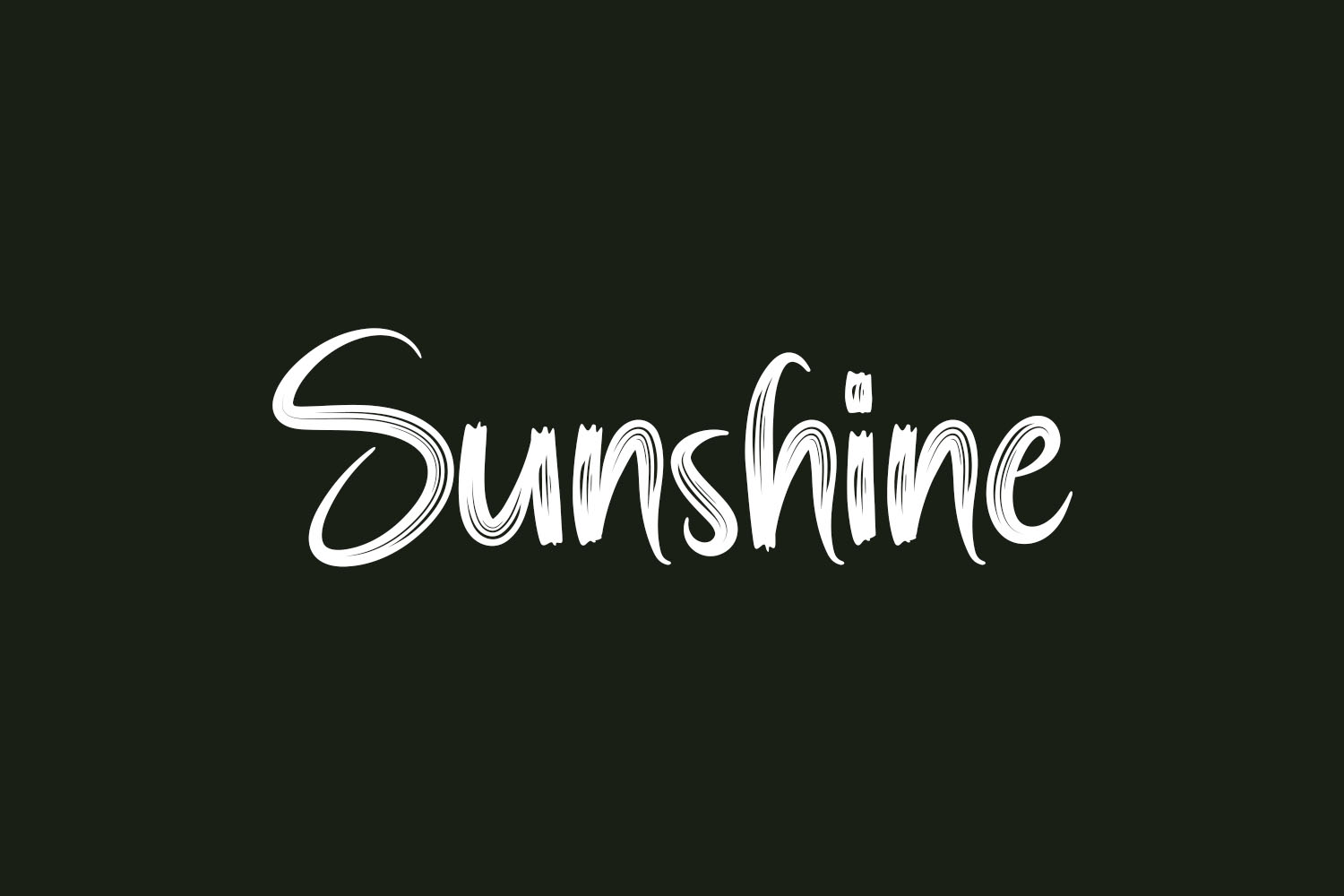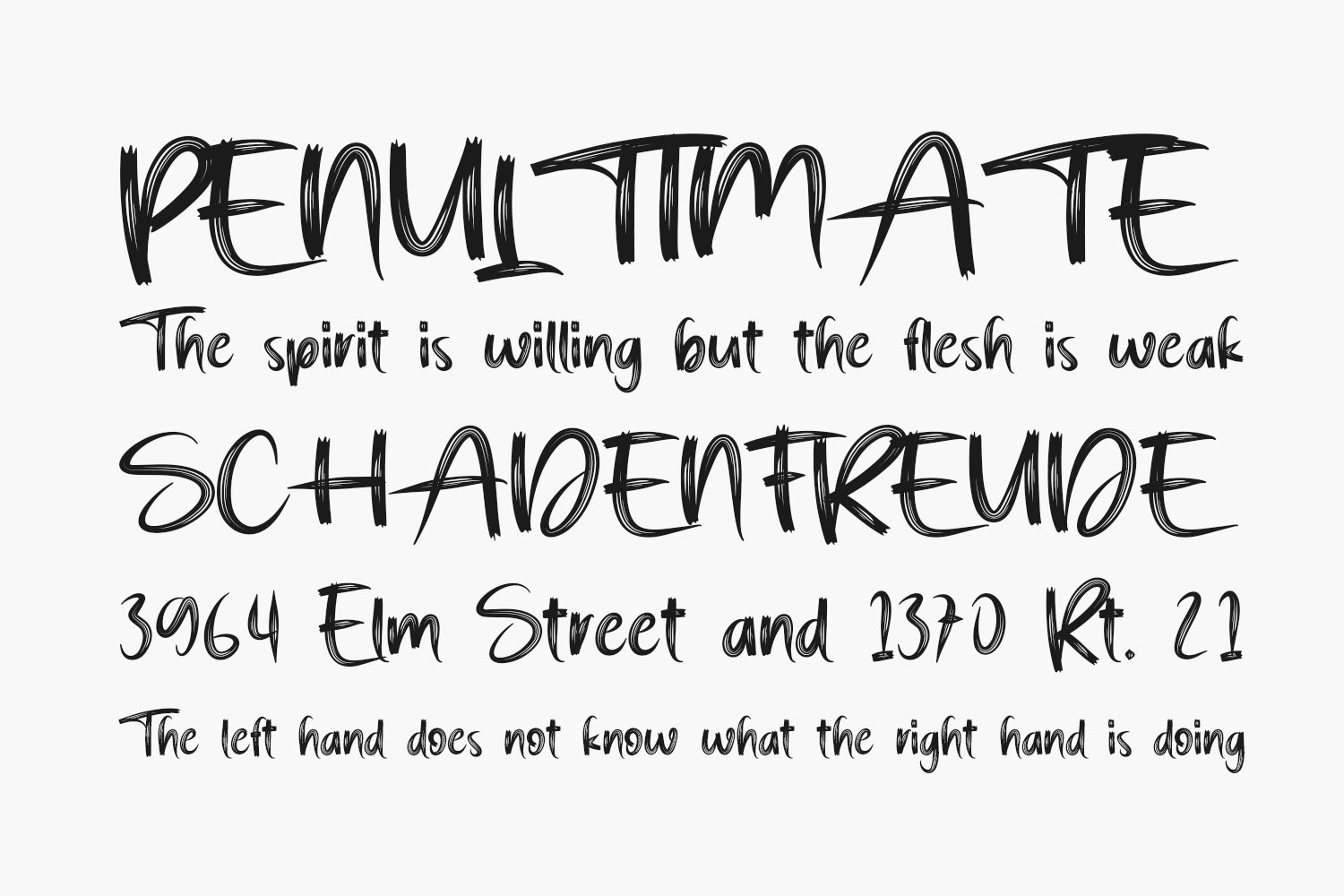
Sunshine Free Font is an exquisite handwritten typeface meticulously designed to deliver an exceptional user experience. This versatile font is ideal for a wide range of applications, including wall decor, wedding invitations, social media content, logo design, advertising, product packaging, product branding, labels, photography enhancement, watermarks, invitations, stationery, and any creative project in need of a distinctive and personal touch. When you choose Sunshine, you’re selecting a font that will elevate your design and captivate your audience. Sunshine Free Font is free for personal use only. Please purchase the full version for commercial use.
Designed by Scratchones